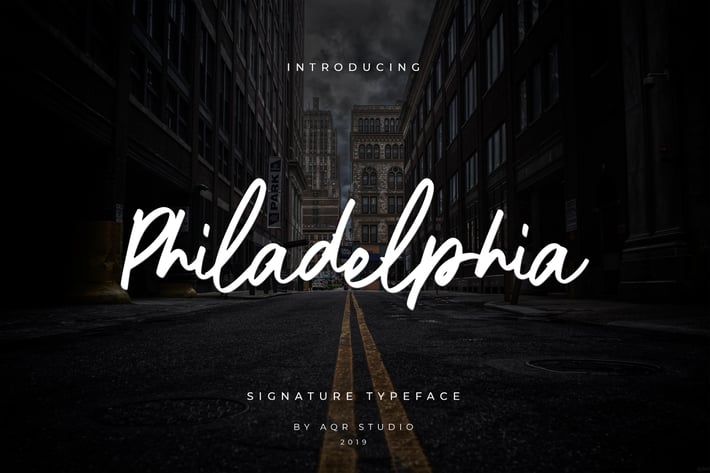
Philadelphia Siganture Font
Philadelphia Siganture Font that contain lowercase, uppercase, symbol, and also support multi language. There’s a lot ligatures in this font. Philadelphia Siganture Font also comes with ligatures, stylistic alternates and many more. this font suitable for fashion, branding, catalog and other design what you want.